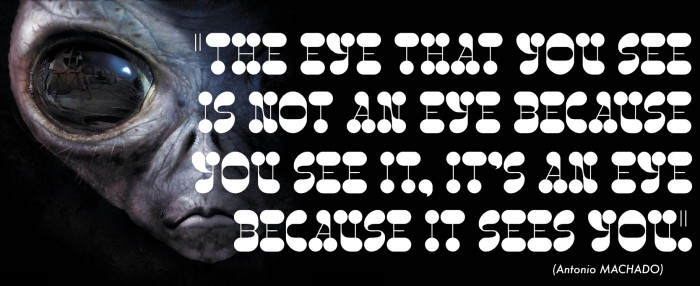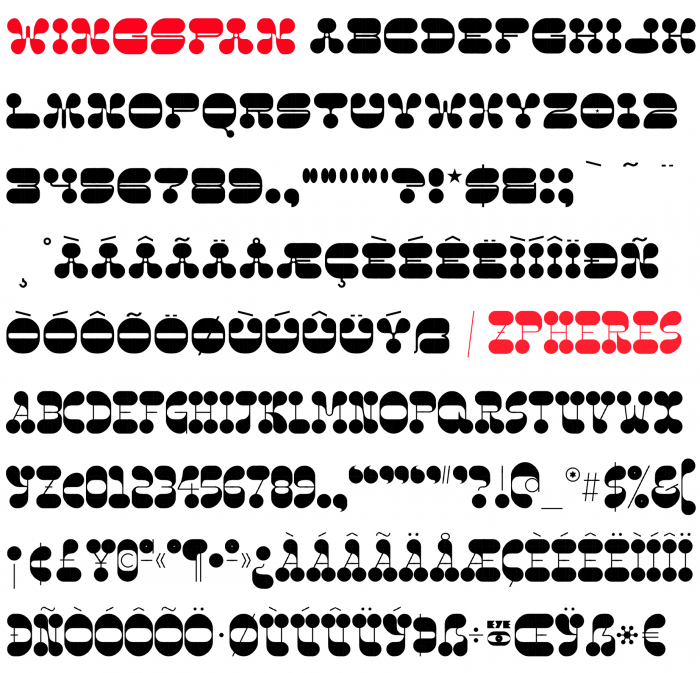
Three in a row: after one lycanthropic font, another to the zombies... the third is for the scifi... and FS!.
Wow. It's incredible. Love it.
OMG what a gift. Extraordinary!
Genius. (as always)
Wow this is beautiful, congrats!
the design is very cute
Congratulations on another excellent font; beautiful zpherical serifs and groovy curves!
So stylish and beautiful!
WOW I love this, we are use to see sharp and square shapes for the western slab... this round shape is a great idea .. well done again
I can only agree with that. I especially like the & and the ß. They are so cute.
Publishing this image makes me very happy for several and important reasons: 1) Because I feel very proud to see that my work serves as an inspiration for a great artist and friend, who improves and enhances my ideas. 2) Because it exemplifies excellently that an inspiration does not have to involve a copy (in fact, between the font of four and mine there is only one similar glyph: the period). 3) Because it allows me to warn anyone who wants to understand that cloning is not creating, even changing a few bricks here and there. I have long wanted to show my dissatisfaction with those people who despise the work of others and clone another work and publish it making it their own with little more added than a name change. For many of the members of this community, publishing a font is the end of a long and steep process that has taken up much of the time that we do not dedicate to other matters (family, rest ...). I ask for respect for the work of others. This is what I wanted to convey with this image full of camaraderie and admiration.
This font is criminally underrated. A bonafide celebration of the medium, overflowing with spacey yet grounded style ?/?
Dear Elmoyenique, I am equally proud to see my font next to yours. Your fonts are so full of life and joy, they have inspired me from the moment I first came accross FontStruct all those years go. Thanks for sharing your work with the world!
Wow! Nice work. Very creative! 10/10